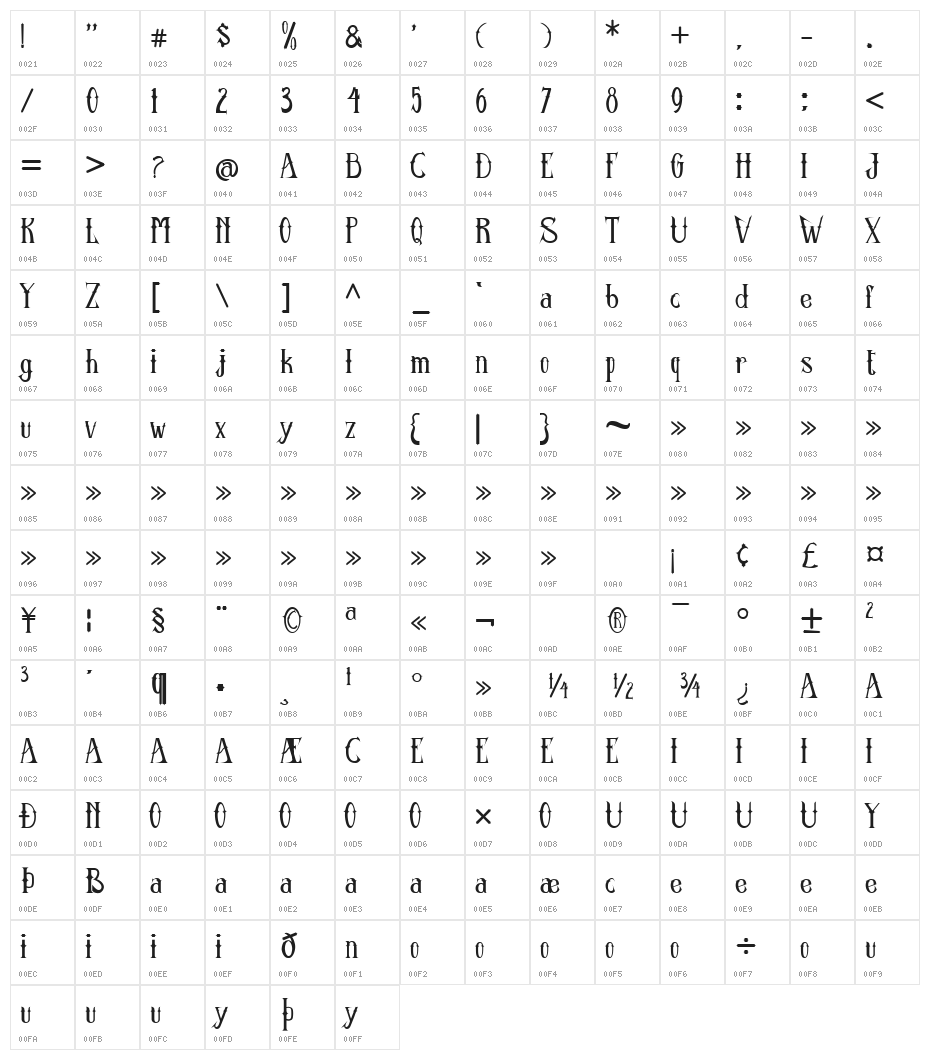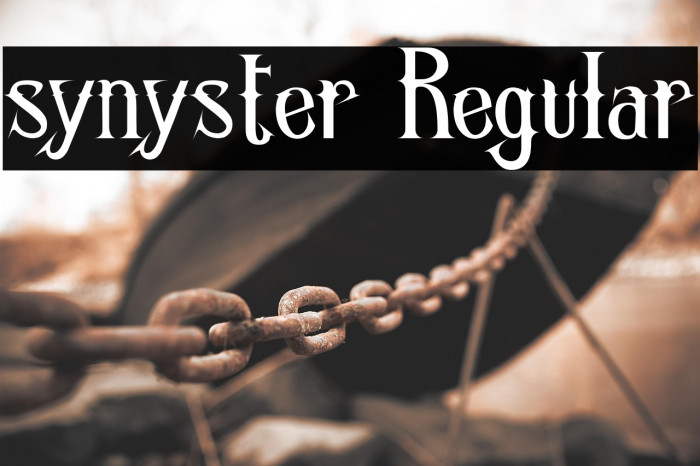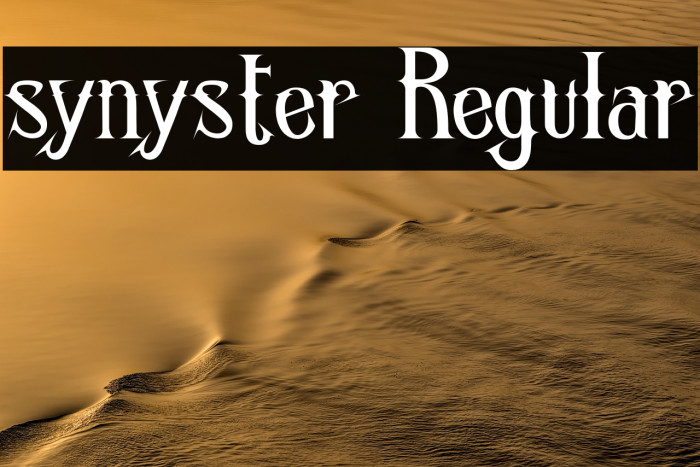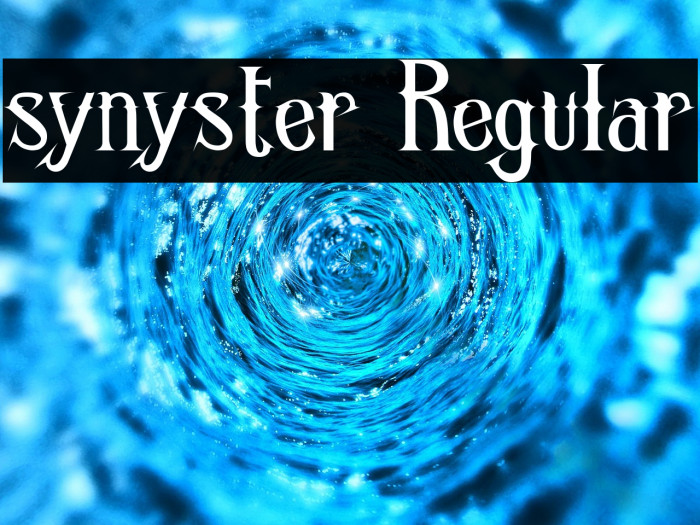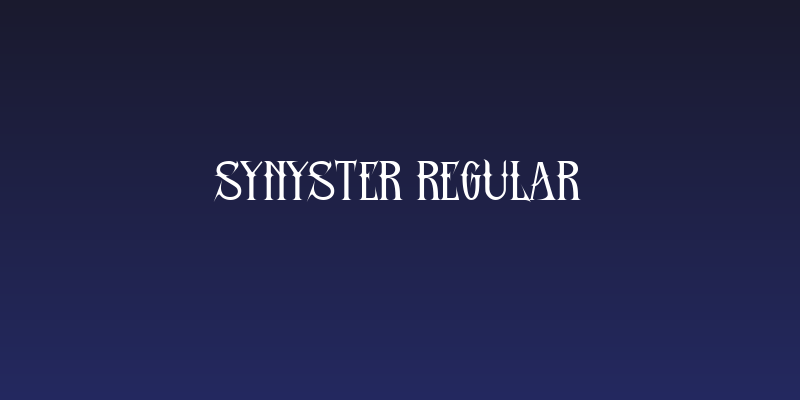
synyster Regular Font
synyster Regular Description
This font features a bold and edgy design with sharp, angular elements that give it a distinctive and dramatic appearance. The uppercase letters are particularly striking, with exaggerated serifs and unique cuts that create a sense of movement and intensity. The lowercase letters maintain a similar style, ensuring consistency across the typeface. Numbers and special characters are designed to match the overall aesthetic, making them suitable for a variety of creative applications. The font's high contrast between thick and thin strokes adds to its dynamic and eye-catching nature.
| Proposed Projects | Ideal for music album covers, posters, branding for edgy or alternative products, and any project requiring a dramatic and impactful typeface. |